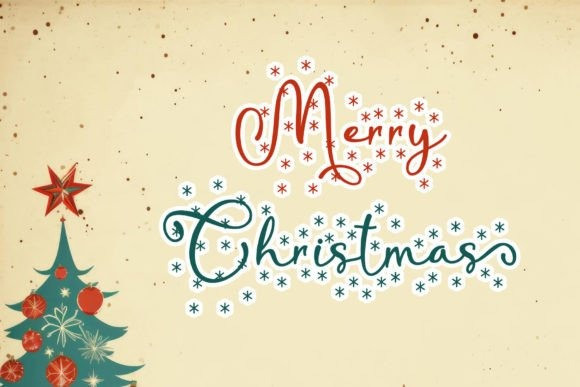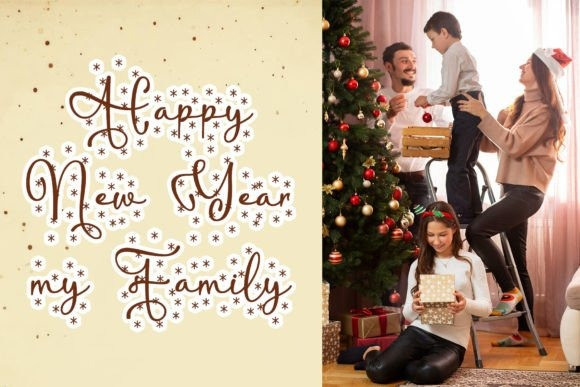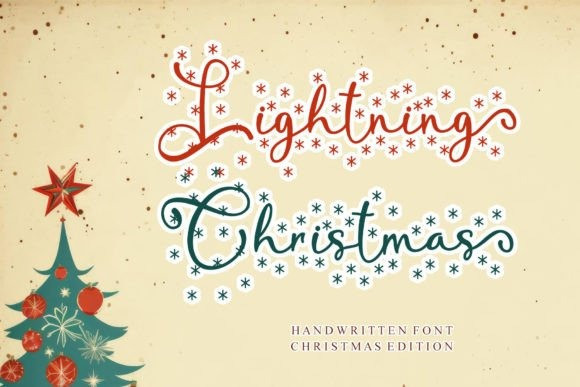
Lightning Christmas Font
Lightning Christmas Font is a handwritten font featuring stars. It will add an awesome to any design project that you wish to create! This font is PUA encoded which means you can access all of the glyphs and swashes with ease!